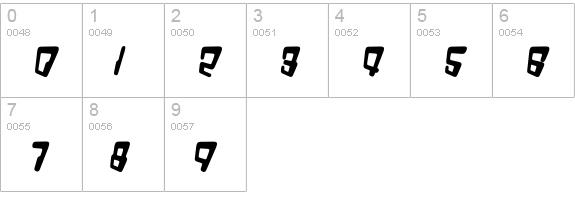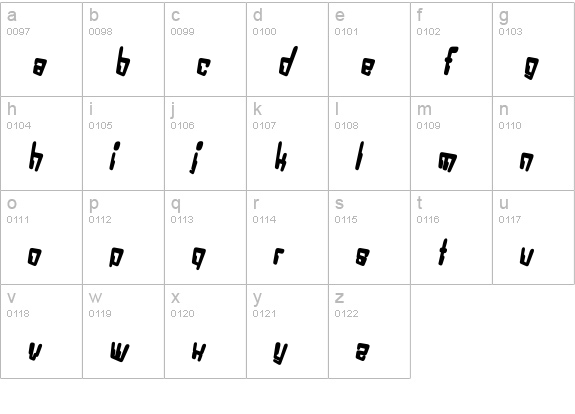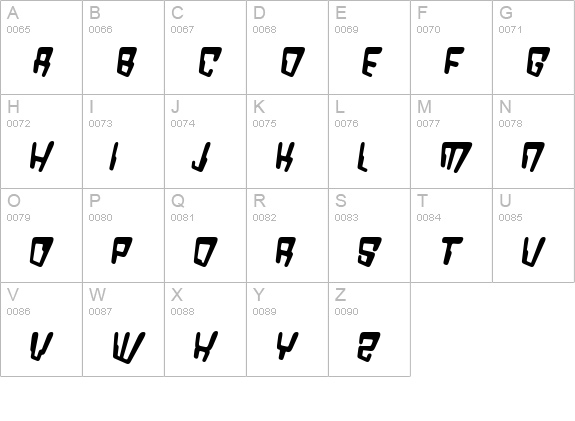
VTC Bad DataTrip Bold Italic Font Details
VTC Bad DataTrip Bold Italic is a strong, high-contrast, italic variant in the VTC typeface family \xE2\x80\x94 well suited to headlines, attention-grabbing titles, and strong calls-to-action.
Introducing VTC Bad DataTrip Bold Italic font, an incredibly unique and stylish typeface that adds a touch of edginess and boldness to any design project. With its striking combination of bold outlines and slanted italics, this font exudes a sense of confidence and modernity. Designed with attention to detail, VTC Bad DataTrip Bold Italic font offers a distinct and eye-catching look that is perfect for headlines, logos, posters, and branding materials. Its unconventional letterforms captivate the viewer, making a lasting impact and setting your designs apart from the rest. But what truly sets VTC Bad DataTrip Bold Italic font apart is its availability as a free download. Yes, you read that right! This exceptional font is freely accessible to all designers, artists, and enthusiasts alike, thanks to FontsMarket.com. With just a few clicks, you can add this incredible font to your collection and unleash your creativity without any limitations. Whether you're working on a personal project or a commercial endeavor, VTC Bad DataTrip Bold Italic font grants you the freedom to experiment, explore, and push the boundaries of typography. Its versatility allows it to adapt to various design styles and themes, making it a go-to choice for professionals and amateurs alike. So, why wait? Enhance your design projects with the captivating and powerful VTC Bad DataTrip Bold Italic font. Download it for free today at FontsMarket.com and unlock a world of endless possibilities. Let your creativity run wild and make your designs stand out with this extraordinary font.